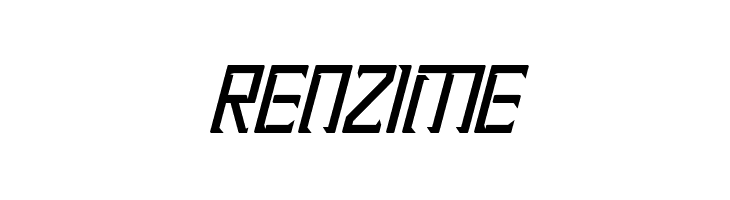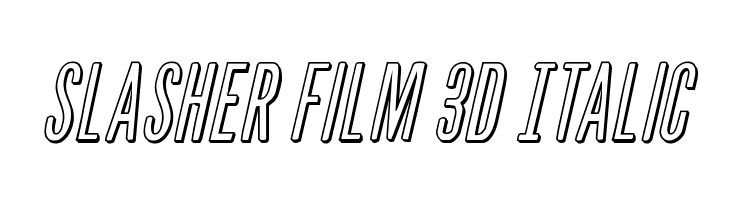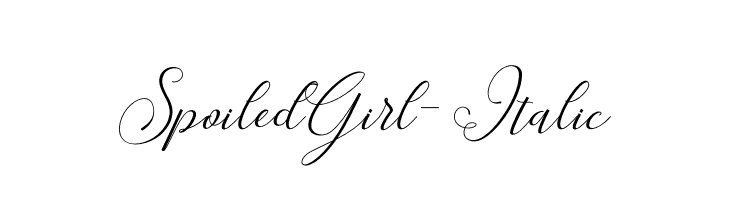
Bold, italicized font with a 3D outline effect.
A bold, angular font with a futuristic and dynamic style.
A lively and elegant script font with flowing, cursive letterforms and whimsical charm.
A futuristic, hollow font with bold outlines and geometric shapes.
A playful, bold font with rounded, hand-drawn letterforms.
A whimsical, hand-drawn script font with decorative swirls and bold characters.
An elegant oblique font with high contrast and dynamic serifs.
A bold, dynamic handwritten font with brush-like strokes.
A bold, italicized font with a futuristic and sporty design.
A bold, hand-drawn font with a rugged and impactful design.